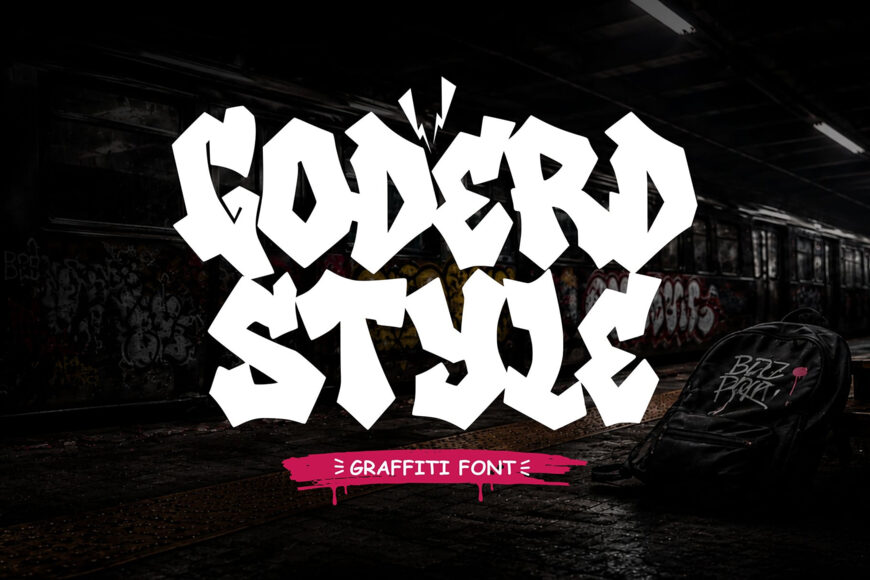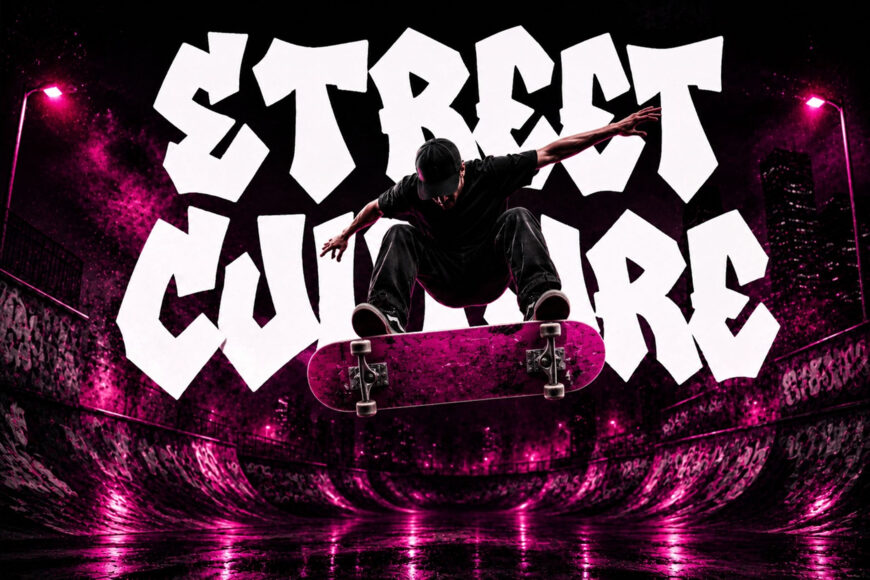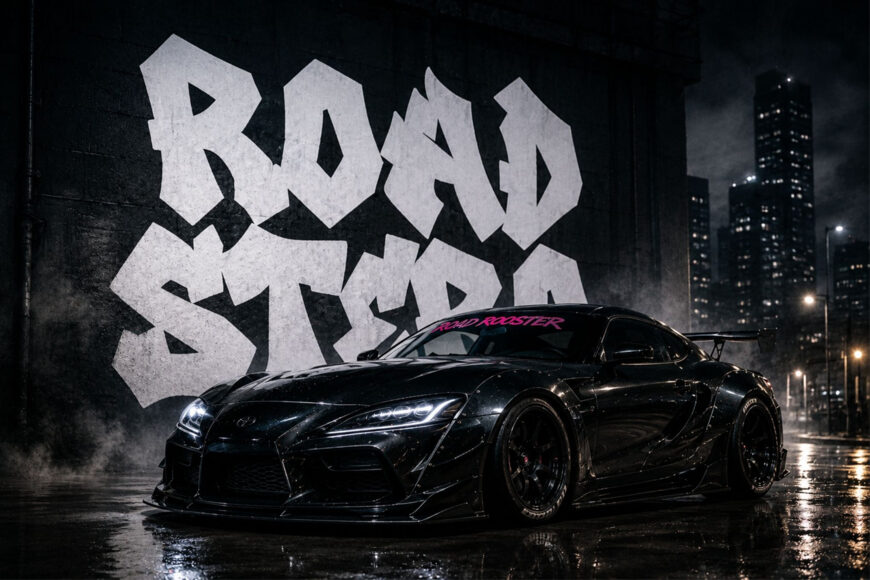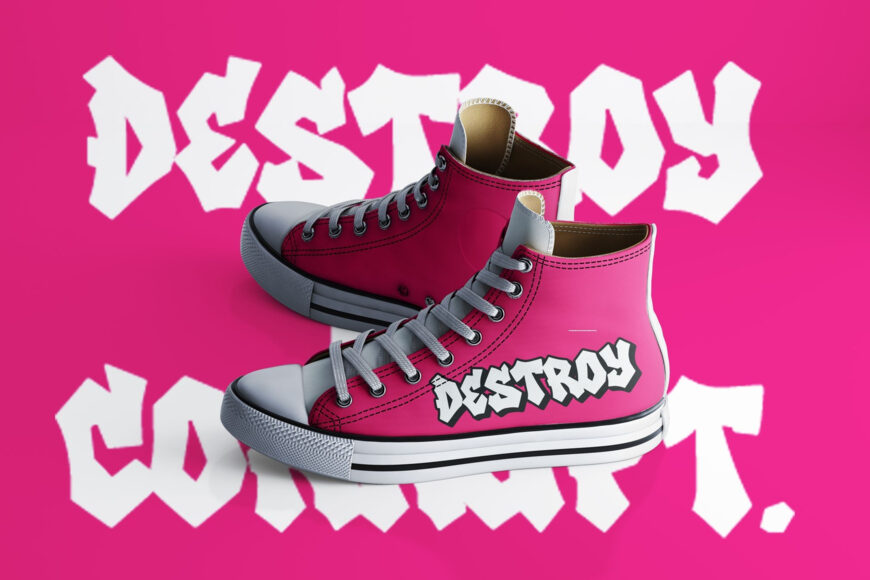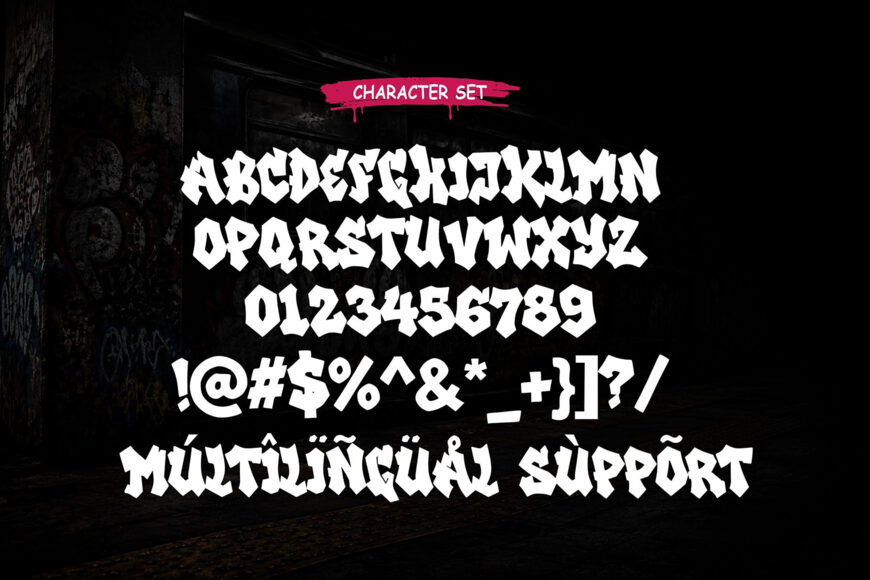
Goderd Style is a bold and commanding graffiti font designed for creators who want powerful typography with authentic urban attitude. Inspired by heavyweight street lettering, large-scale graffiti murals, and modern hip-hop culture, this heavy graffiti font delivers thick letterforms that create maximum visual impact.
Whether you’re designing streetwear collections, music artwork, esports branding, posters, logos, or social media campaigns, Goderd Style graffiti font gives your typography a fearless presence that instantly captures attention.